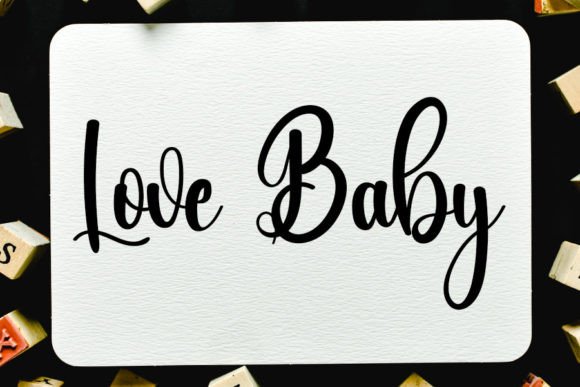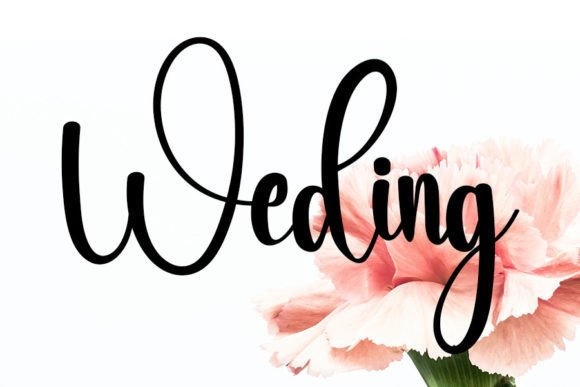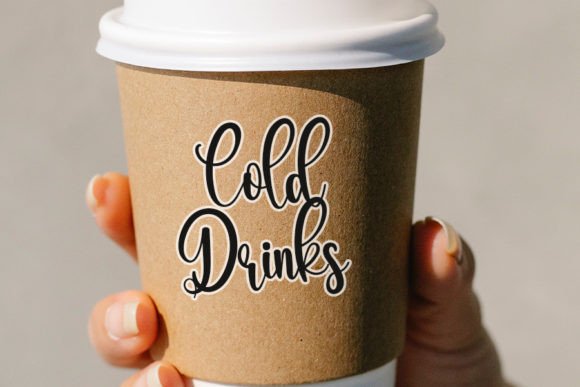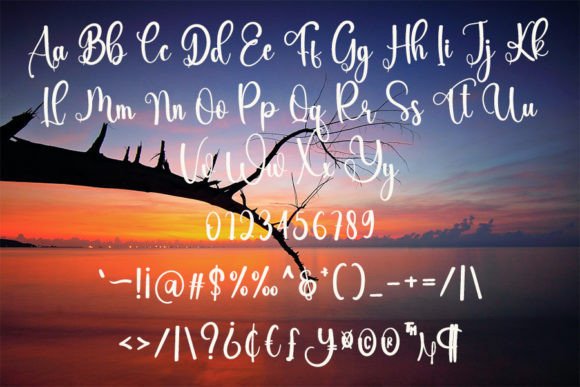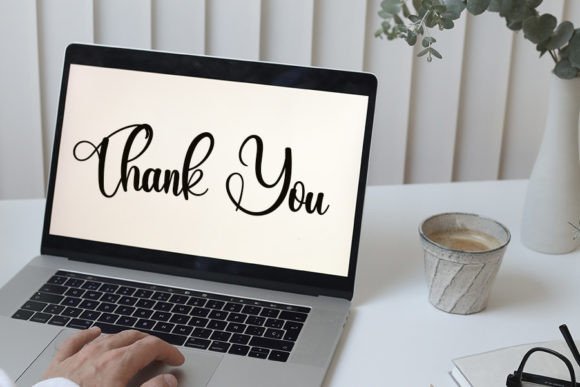
Introducing Chubby Kid Font: The Perfect Blend of Classy and Contemporary
In the world of typography, fonts play a crucial role in conveying the tone and personality of a brand or design. For designers and crafters looking for a friendly and approachable font, Chubby Kid Font is an excellent choice. This beautifully crafted handwritten font is designed to become a true favorite, offering a perfect blend of classy calligraphic influences and modern freshness.
The Story Behind Chubby Kid Font
Chubby Kid Font is a carefully designed font that aims to bring a touch of warmth and personality to any design project. Its creators have poured their hearts into crafting a font that is not only aesthetically pleasing but also highly versatile. Whether you’re working on a branding project, crafting a social media post, or creating a handmade craft, Chubby Kid Font is the perfect companion.
Key Features of Chubby Kid Font
- Handwritten with love: Chubby Kid Font is a handwritten font that exudes warmth and friendliness. Its carefully crafted letters are designed to make your designs feel approachable and inviting.
- Classy calligraphic influences: This font boasts elegant calligraphic influences that add a touch of sophistication to any design. The subtle flair of the letters gives Chubby Kid Font a refined and polished look.
- Contemporary and fresh: Despite its classic influences, Chubby Kid Font feels modern and fresh. Its clean lines and balanced proportions make it perfect for a wide range of design applications.
- Highly versatile: Chubby Kid Font is an incredibly versatile font that can be used for various design projects, from branding and advertising to crafting and DIY projects.
Why Choose Chubby Kid Font?
With so many fonts available, why should you choose Chubby Kid Font for your design projects? Here are a few compelling reasons:
- Unique personality: Chubby Kid Font has a distinct personality that sets it apart from more generic fonts. Its friendly and approachable vibe makes it perfect for brands and designers looking to connect with their audience.
- Ease of use: This font is incredibly easy to read and use, making it perfect for body text, headings, and titles.
- Customization options: Chubby Kid Font can be easily customized to fit your design needs. Experiment with different colors, sizes, and styles to create a unique look.
Design Ideas with Chubby Kid Font
Chubby Kid Font is an incredibly versatile font that can be used in a wide range of design projects. Here are a few ideas to get you started:
- Branding and logos: Use Chubby Kid Font to create a friendly and approachable brand identity. Its classy influences make it perfect for businesses looking to establish a professional image.
- Social media graphics: Add a personal touch to your social media posts with Chubby Kid Font. Its modern freshness makes it perfect for creating engaging and shareable content.
- Crafting and DIY projects: Chubby Kid Font is a great choice for crafters and DIY enthusiasts. Use it to create personalized cards, gift tags, and other handmade projects.